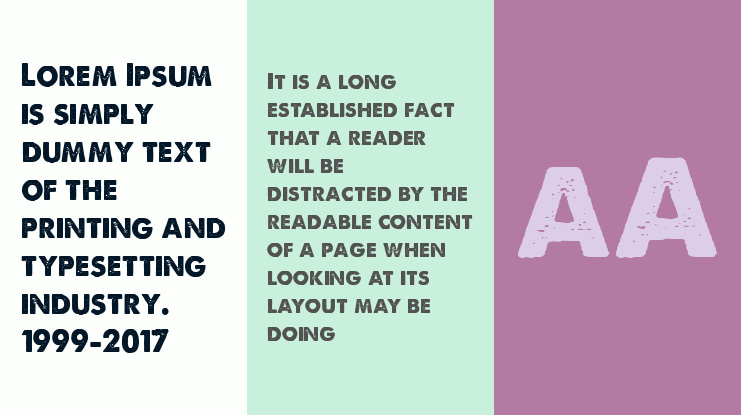
It ended up quite different but definitely resembling thunder and lightning! Initial inspiration for this font was the logo of the upcoming thor movie “love and thunder”. Licensed for personal and commercial use.